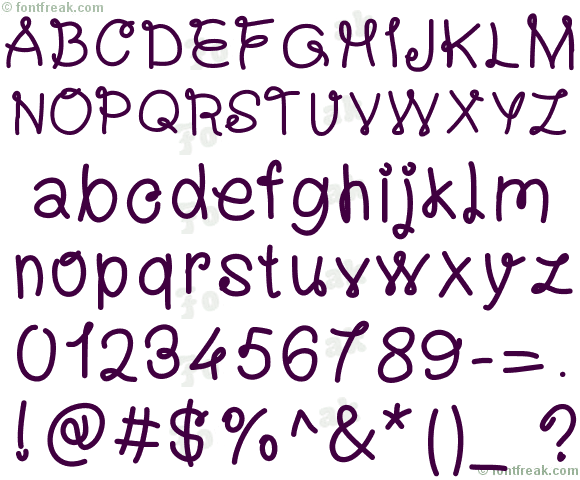
XperiencePasta
XperiencePasta by Peax Webdesign is a playful and whimsical display font that captivates with its unique character and charm. This handwritten-style font features rounded letters with a friendly demeanor, making it an excellent choice for projects that require a touch of warmth and creativity. The stroke weight is consistent, giving it a balanced appearance, while the slightly uneven spacing adds a hand-crafted feel, enhancing its approachable nature. Decorative elements, such as the quirky loops and swirls on certain letters, lend an air of spontaneity, making each word feel lively and engaging.
This versatile font is perfect for a variety of applications. It shines in wedding invitations, where its romantic and informal style can set a joyful tone for the occasion. Additionally, XperiencePasta is ideal for restaurant menus, especially those aiming for a casual dining atmosphere that invites patrons to relax and enjoy their meal. Graphic designers can leverage this font for branding projects, creating logos that stand out with a fun and inviting flair. Content creators will find it suitable for social media graphics, where capturing attention quickly is essential. Lastly, it can enhance children's book covers, appealing to young readers with its playful aesthetics.